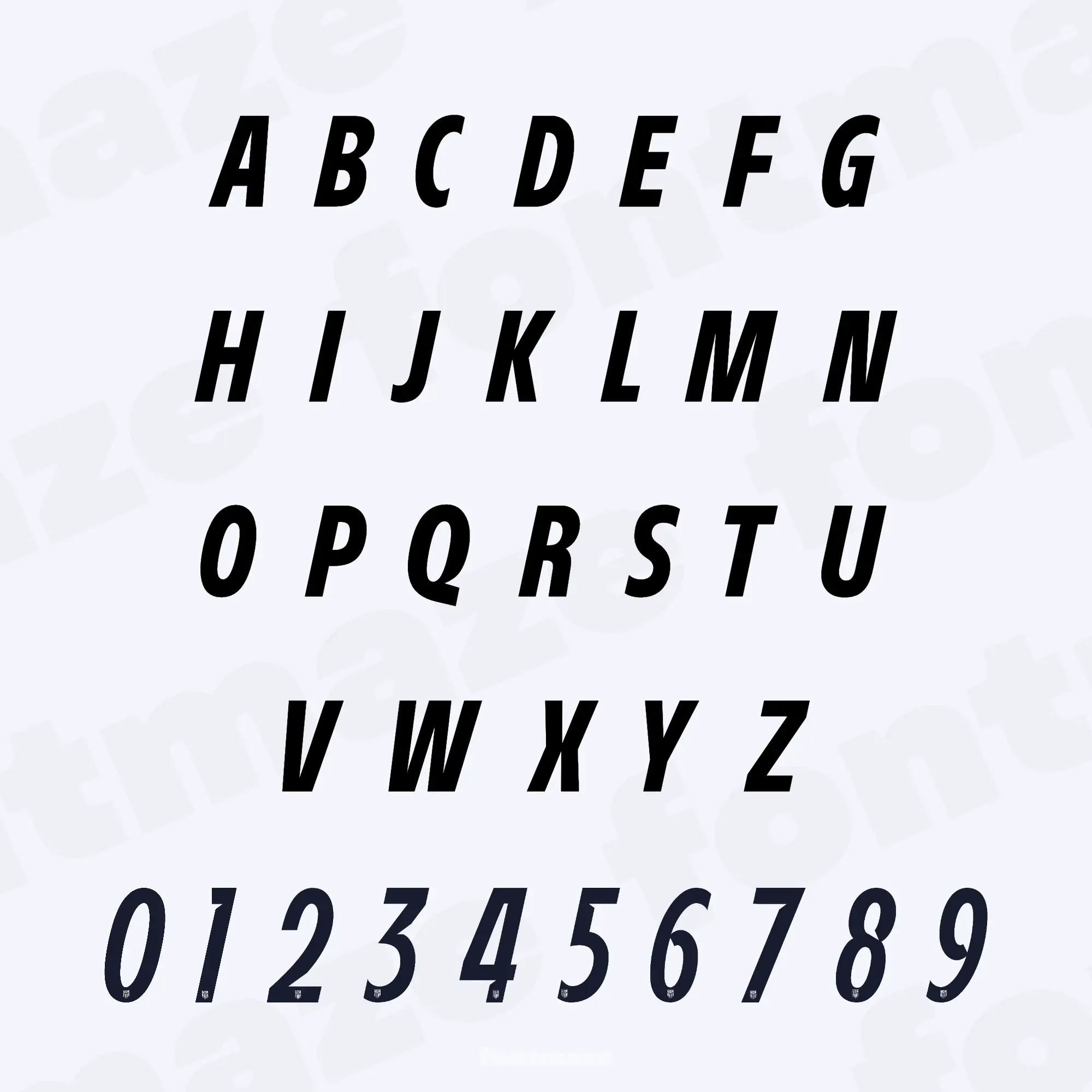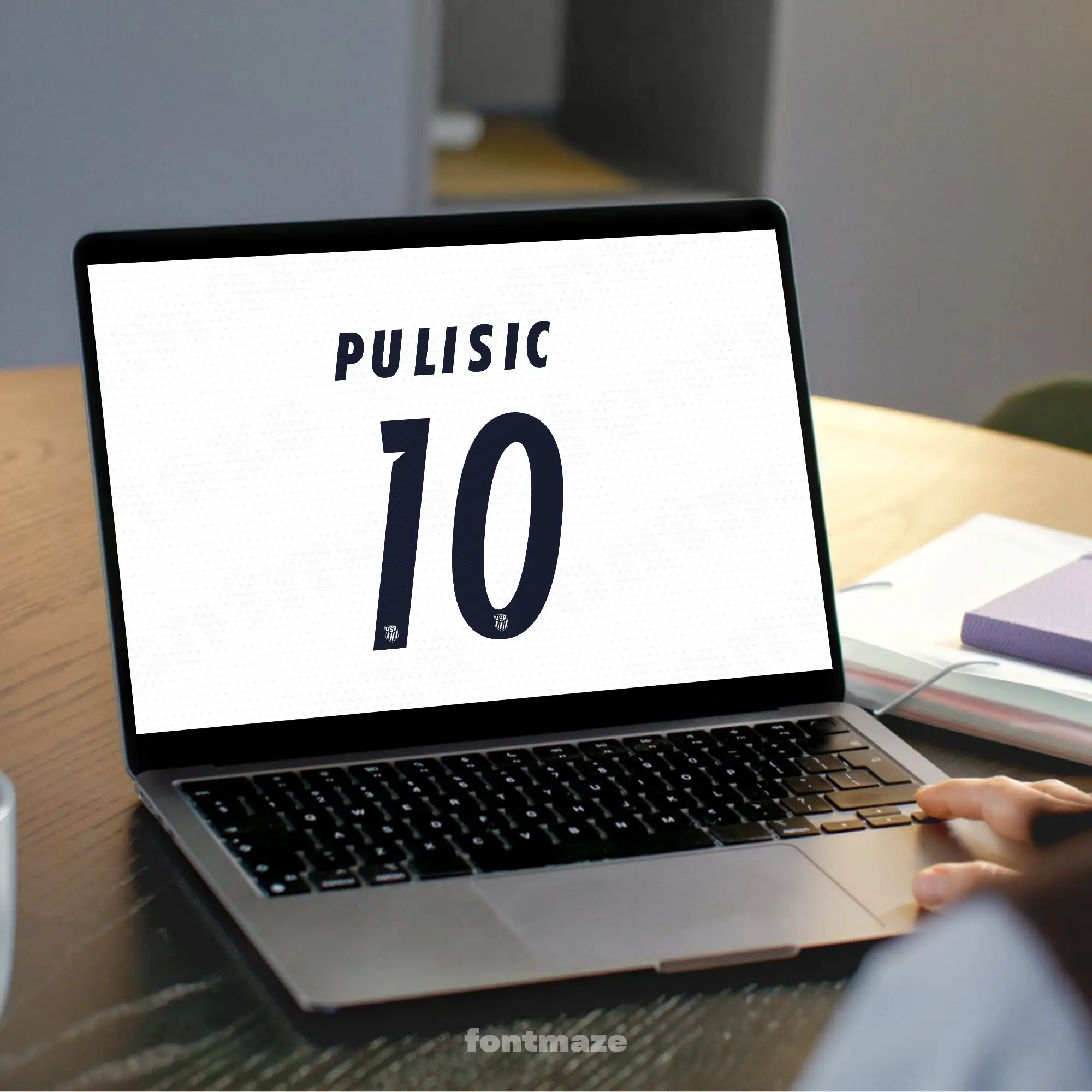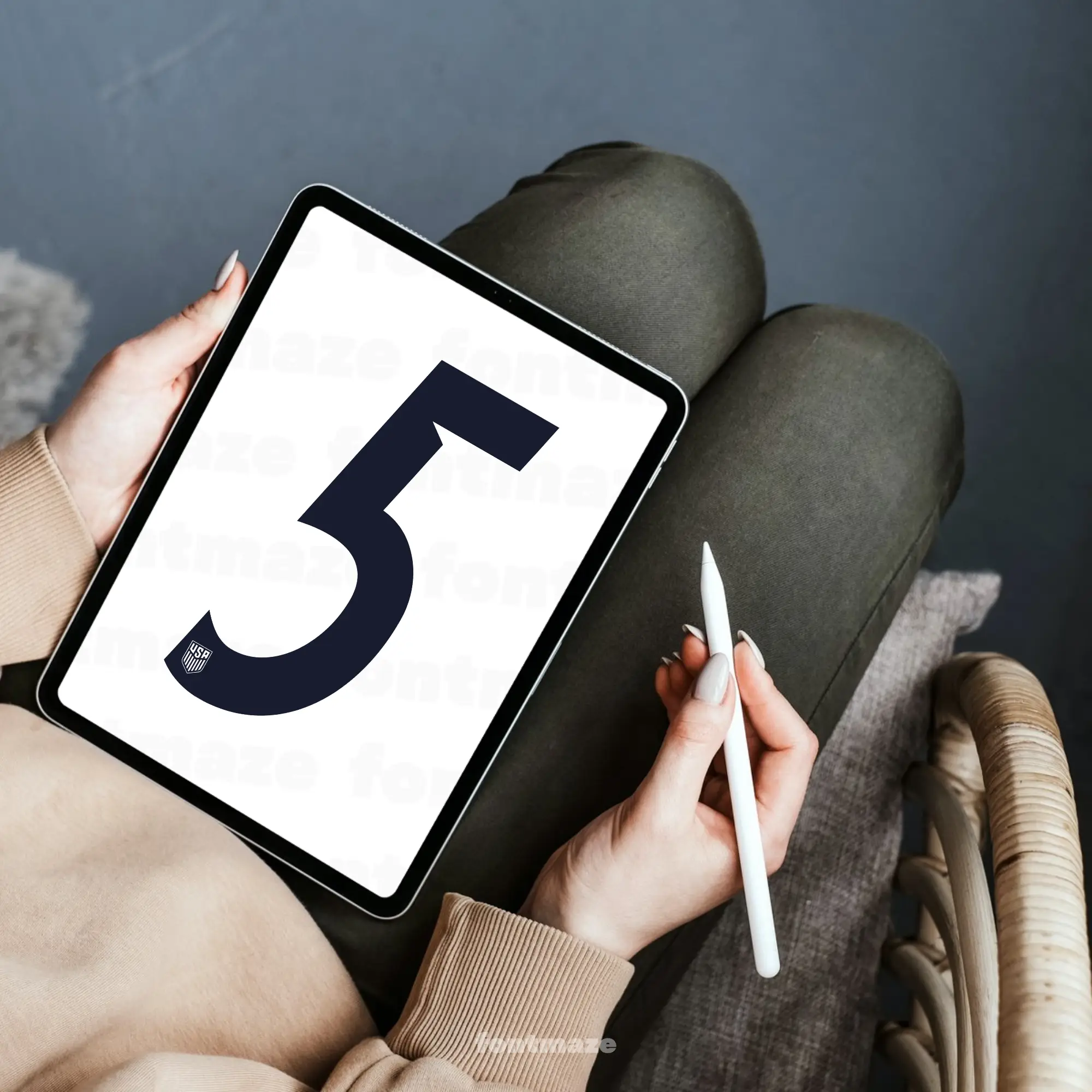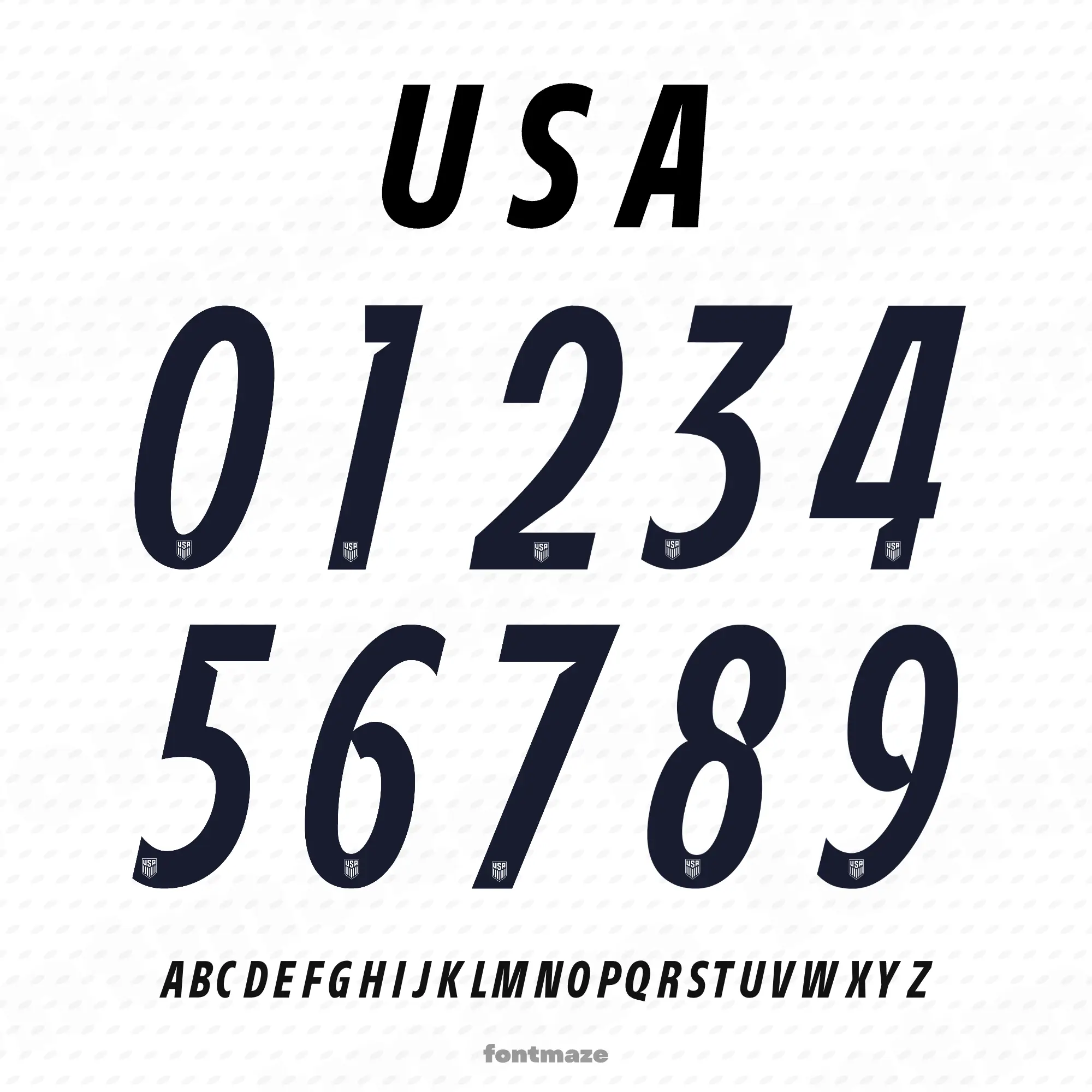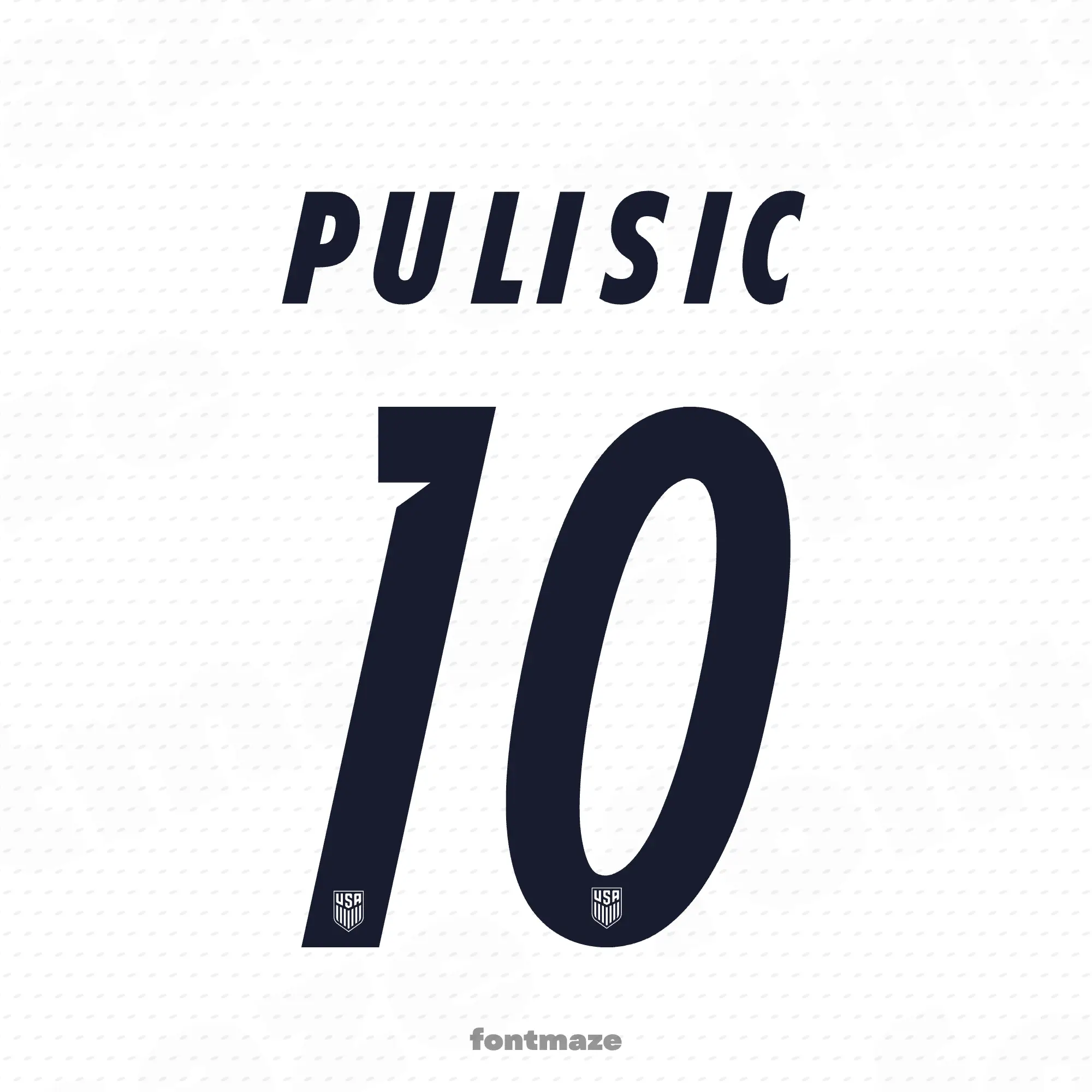
USA Soccer font
Create soccer shirts, custom jerseys, and match-day graphics with a clean tournament look using the USA Soccer font. This style is made for player names, bold shirt numbers, posters, and fan designs inspired by the World Cup 2026 season.
Use it for custom jerseys, football numbers, player-name lettering, team-inspired graphics, and quick Cricut or Canva projects. It also works well for Pulisic-inspired fan shirt design, match day design, and soccer jersey font layouts for personal creative projects.
Preview showing all characters of the Usa Soccer font designed by FontMaze.
USA Soccer Font – World Cup 2026 Football Font